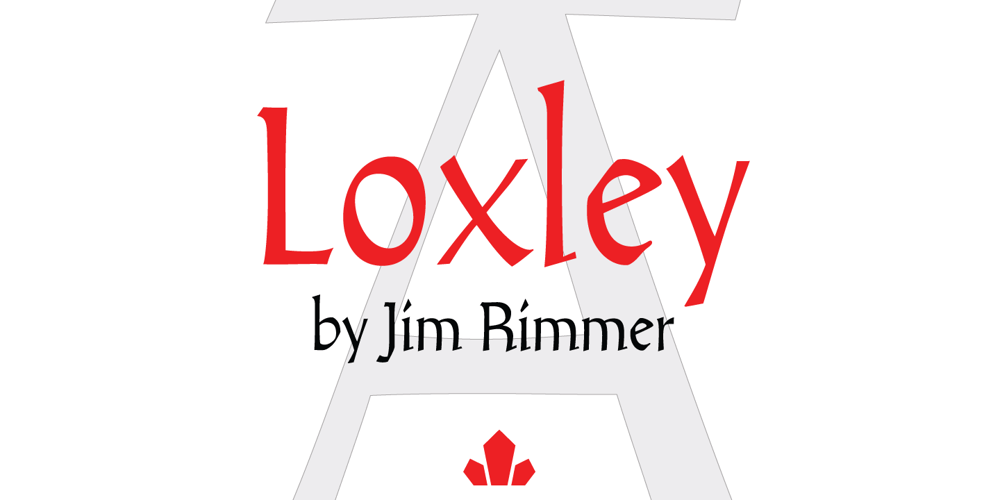
Loxley Font Family was designed by Jim Rimmer and published by Canada Type. Loxley contains 1 styles and family package options. Drawn shortly before Jim Rimmer’s passing in 2010, Loxley was designed to be used in a fine press edition of the folklore story of Robin Hood. It was named after the cited birthplace of the story’s classic hero. Loxley’s shapes were inspired the same early Roman faces (such as Subiaco from the late 1400s) that influenced Frederick Goudy’s Aries, Franciscan and Goudry Thirty types. It exhibits the preculiarities of Jim’s left-handed calligraphy, as well as his outside-the-box thinking with exit strokes and serif variations. Loxley was remastered for the latest technologies in 2013. Now it comes with a character set of over 450 glyphs, including plenty of stylistic alternates, a full compliment of f-ligatures, a Th-ligature, basic fractions, ordinals, a long s for historic setting, comprehensive class-based kerning, and extended Latin language support. 20% of this font’s revenues will be donated to the Canada Type Scholarship Fund, supporting higher typography education in Canada.